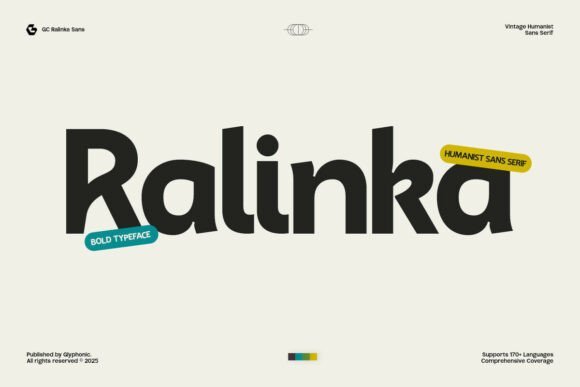
Discovering the Perfect Blend: Unveiling the Gc Ralinka Font
Have you ever been stuck in front of a blank design canvas, searching for the perfect font to bring your creative vision to life? You know the feeling – the cursor blinks impatiently as you browse through fonts, trying to find that elusive combination of style and substance. For designers, finding the right typeface can be a game-changer, and that’s where the Gc Ralinka Font comes in.
This bold humanist sans-serif typeface is designed to deliver maximum readability and personality, making it an ideal choice for headlines, branding, logos, and more. What sets Gc Ralinka apart is its unique ability to balance warmth and strength with clean, modern lines – a quality that makes it a valuable asset for designers looking to create lasting impressions in both print and digital media.
Gc Ralinka Font Key Features
- Unique Characteristics: The Gc Ralinka Font features a unique blend of modern and traditional design elements, making it perfect for creating eye-catching headlines and titles.
Review of Gc Ralinka Font
✨ The Gc Ralinka Font has a unique and playful feel to it, making it perfect for projects that need a bit of whimsy. The font is highly legible and works well in both headings and body text.
✨ The font has a wide range of weights and styles, making it versatile and easy to customize to suit different design needs.
- ⚠️ The font may not be suitable for formal or professional projects, as it has a more casual and youthful feel to it.
- ⚠️ Some users may find the font to be a bit too bold or overpowering, especially in smaller sizes.
- ⚠️ The font does not come with a lot of language support, which may limit its use in multilingual projects.
Overall, I would say that the Gc Ralinka Font is a great choice for projects that need a bit of personality and flair. While it may not be suitable for every project, it’s a great addition to any designer’s font library. With a bit of caution and consideration for its limitations, the Gc Ralinka Font can be a real showstopper.